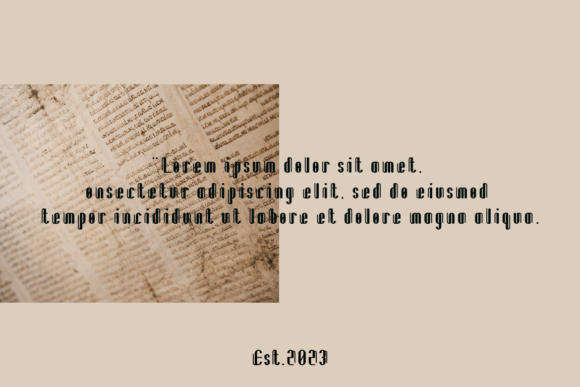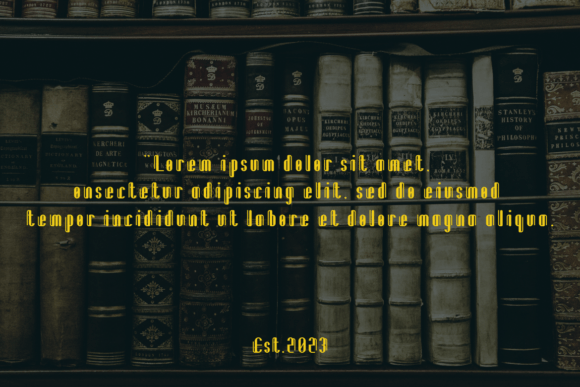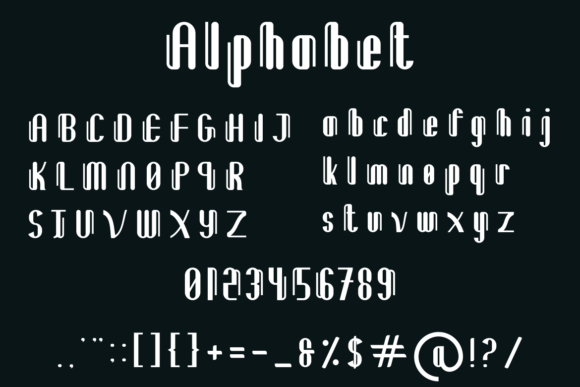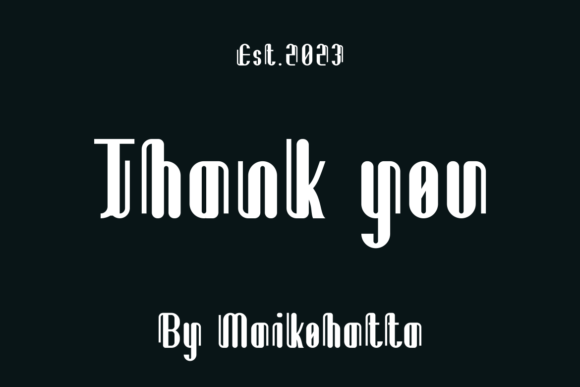
Introduction to Hambalant Font
Hambalant Font is a modern and geometric decorative font.
This lovely typeface is perfect for logos, t-shirt printing, esports, and many more Outstanding in a wide range of contexts.